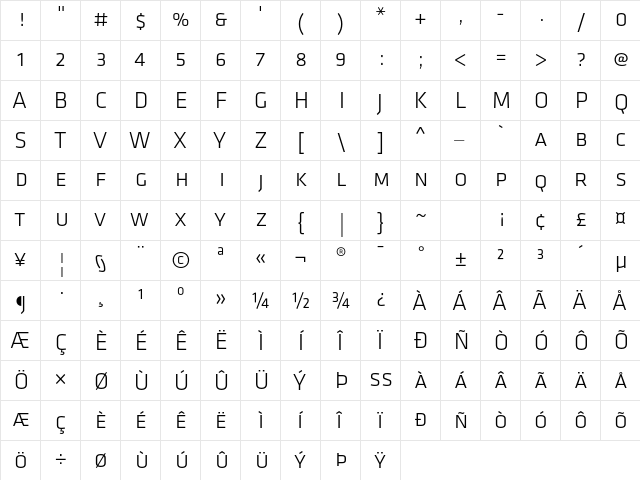
Klavika Light Caps Light
Design Context for Klavika Light Caps Typeface
Klavika Light Caps is a composed and adaptable typeface that performs quietly and consistently across a wide range of design contexts. The delicate stroke weight brings airiness and refinement to layouts.